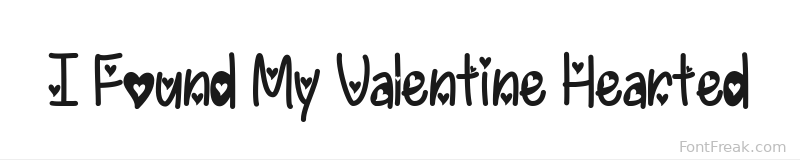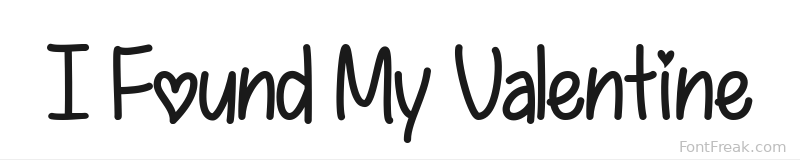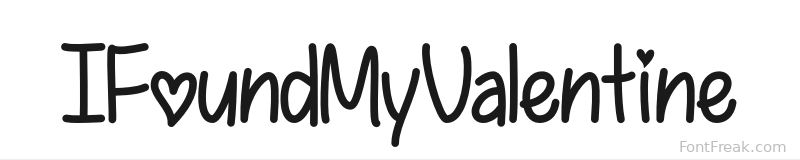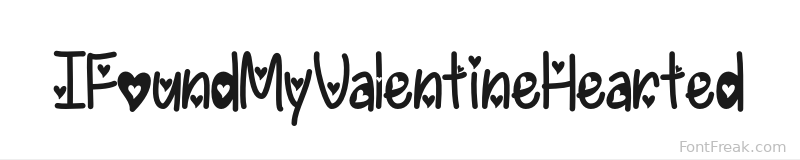
IFoundMyValentine
I Found My Valentine
IFoundMyValentineHearted
I Found My Valentine Hearted
About IFoundMyValentine
IFoundMyValentine is a charming handwritten font designed by Misti Hammers, characterized by its playful and warm aesthetic. As a script style font, it features a whimsical touch that makes it ideal for a variety of personal and commercial projects. The strokes are fluid and soft, with a moderate contrast that adds a sense of elegance without sacrificing legibility. The irregular spacing between letters enhances its informal, friendly vibe, making it feel approachable and inviting.
This font shines in specific use cases, such as wedding invitations, where its romantic flair can elevate the overall design. It is also perfect for greeting cards, helping to convey heartfelt messages in a visually appealing way. Additionally, IFoundMyValentine works well on restaurant menus, where the handwritten style can create a cozy and inviting atmosphere. Content creators can leverage this font in social media graphics, as its unique character can capture attention and resonate with audiences. Graphic designers will find it an excellent choice for branding projects that aim for a personal touch.
What sets the IFoundMyValentine font apart is its ability to evoke emotion while remaining versatile across various applications. Whether used in a romantic design or a casual setting, this font brings a sense of warmth and personality, making it a delightful choice for anyone looking to add a unique touch to their work. For those interested, the IFoundMyValentine font free download is readily available, allowing you to explore its potential in your next creative endeavor.